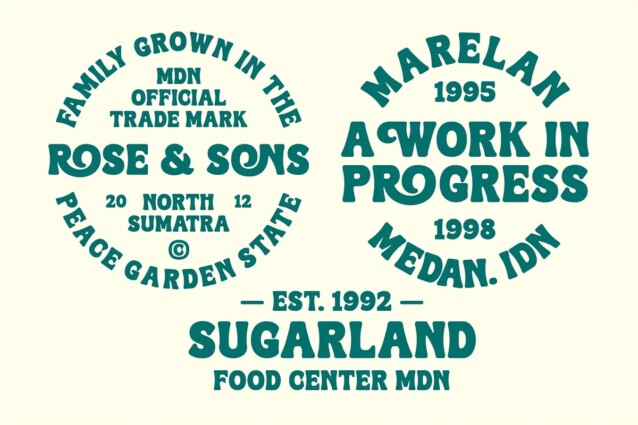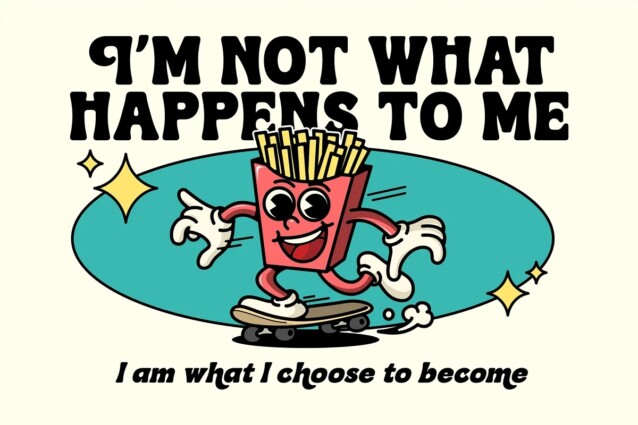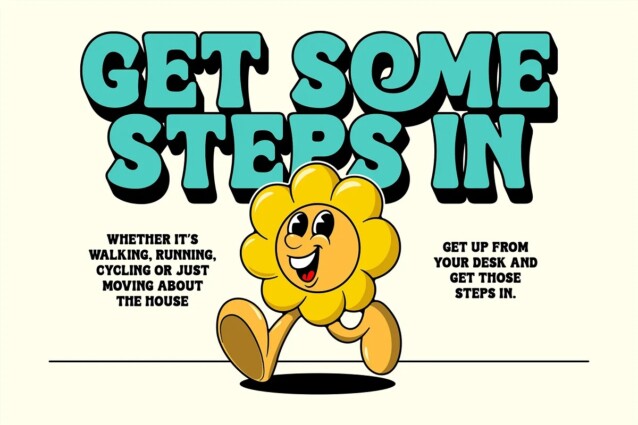
Heroline Font
Heroline Font – it’s classic, bold and unique, really tying your piece together for a retro feel. Heroline features a soft, solid design with curved corners and a unique letter shape. This font also includes a variety of alternative characters and ligatures, allowing you to create many different looks with the same font.